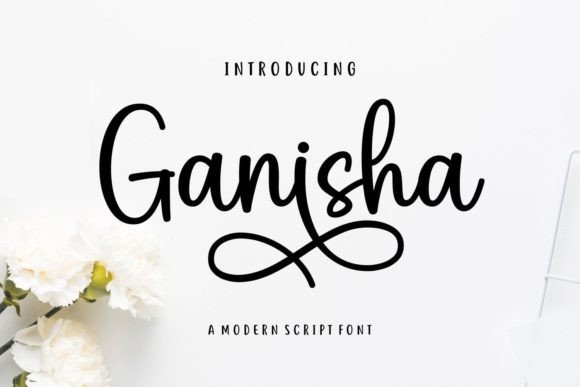
Get ready to be swept away by the enchanting beauty of Ganisha Font, a script font that exudes elegance like no other. This modern masterpiece is carefully crafted to add a touch of personality to your design projects, making it the perfect choice for invitations, branding, quotes, greeting cards, and so much more.
Allow Ganisha Font to elevate your designs with its captivating curves, graceful swashes, and stunning ligatures. Experience the joy of effortless creativity as you explore the endless possibilities that await. Whether you're a seasoned designer or just starting, Ganisha Font is your gateway to creating designs that leave a lasting impression.
Unleash your imagination and let the magic of Ganisha Font transform your projects into works of art. Its PUA encoding ensures seamless access to all glyphs and swashes, making it a breeze to add intricate details and stunning visual elements.
Step into a world of endless creativity with Ganisha Font. Its versatility knows no bounds, making it perfect for a wide range of projects. From heartfelt wedding invitations to eye-catching branding, from inspiring quotes to heartfelt greeting cards, Ganisha Font is your trusted companion, bringing beauty and sophistication to every design.
With Ganisha Font at your fingertips, experience the joy of creating designs that capture attention and leave a lasting impact. Let your creativity flourish and embark on a design journey that's both inspiring and unforgettable. Discover the power of Ganisha Font today and unlock a world of endless creative possibilities.